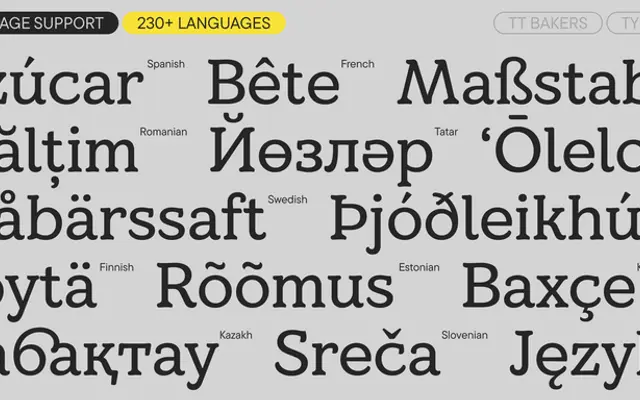
TT Bakers
TypeType · Marina Khodak, Anastasia Pogorelova, Anastasia Vrublevskaya · 2025
A fluid serif with brush-like strokes and asymmetrical serifs, released by TypeType in 2025 across 15 styles with variable font support.
Balanced contrast and generous spacing keep the type readable at body sizes, while the calligraphic, brush-inflected strokes become more pronounced at display scale. Asymmetrical serifs introduce a directional rhythm that suits editorial headlines, food packaging and brand identities. The family spans seven weights from Light to Black with matching italics, plus a variable font running along weight and slant axes, and covers over 230 languages including extended Latin and Cyrillic.
Described by TypeType as a fluid serif with brush-like strokes and asymmetrical serifs; the combination of display expressiveness at large sizes with adequate text readability places it squarely in the display serif category with humanist calligraphic influences.